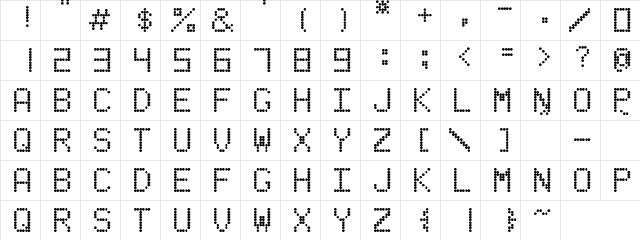
LED SCREEN GTAMBLOG CAPS+ 2.0 Regular
Design Context for LED SCREEN GTAMBLOG CAPS+ 2.0 Typeface
LED SCREEN GTAMBLOG CAPS+ 2.0 takes a measured approach to typography — its balanced proportions and neutral character make it a reliable workhorse for both digital and print work.